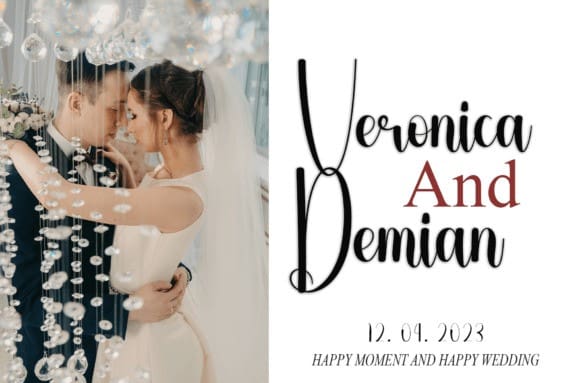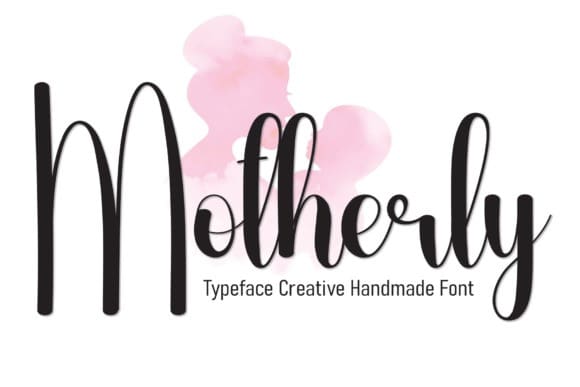
Motherly Script Font
Motherly Script Font, is a sweet and friendly handwritten font. Fresh and neat, this font is ideal for writing wedding invitations, cards, or any other design that might need a fun touch!